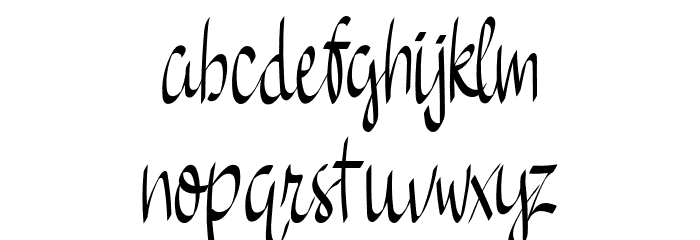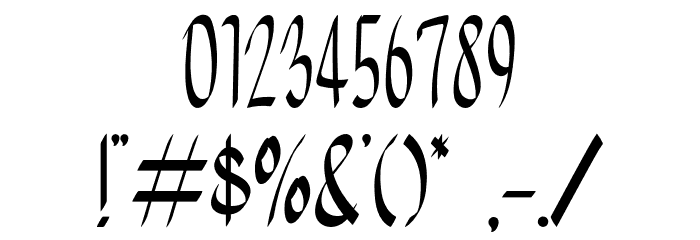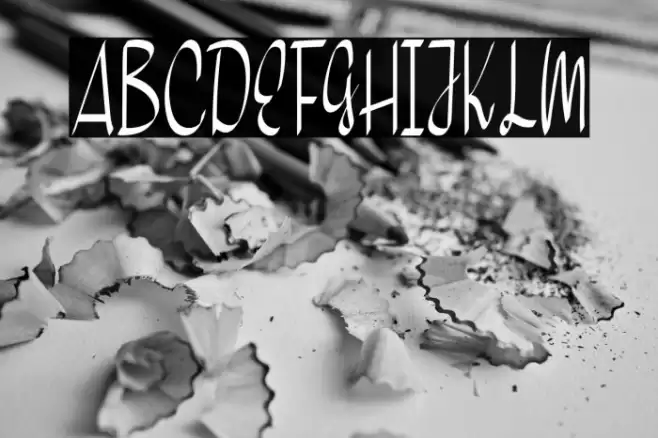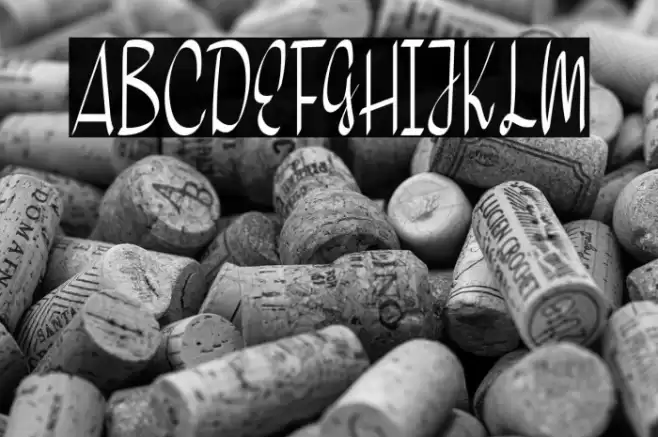
This font features a playful and dynamic script style with a handwritten appearance. The letters are slightly slanted, giving a sense of movement and fluidity. The strokes vary in thickness, adding a lively and informal touch. The uppercase letters are bold and prominent, while the lowercase letters maintain a consistent flow. The numerals and special characters complement the overall style, making it suitable for creative and expressive designs. The font's unique character is enhanced by its irregular edges and varying line weights, which contribute to its casual and artistic feel.
A playful, handwritten script font with dynamic strokes and a lively appearance.
- Proposed Projects: Ideal for greeting cards, invitations, posters, and creative branding projects.
- Use Case: Logos, Headlines, Creative projects